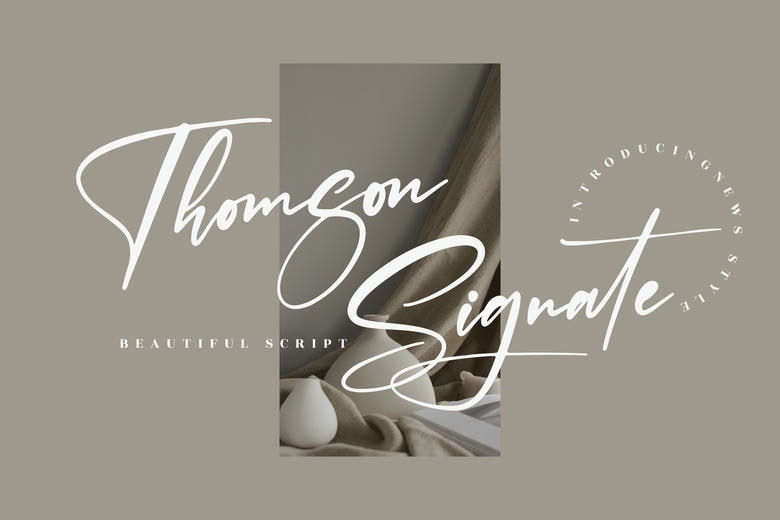
Thomson Signate Font
Thomson Signate is a beautiful handwritten font that adds a unique touch to your projects. It works well for elegant logos, branding, travel promotions, magazines, beauty products, packaging, quotes, or as a stylish text overlay on images.
Thomson Signate Handwritten Font